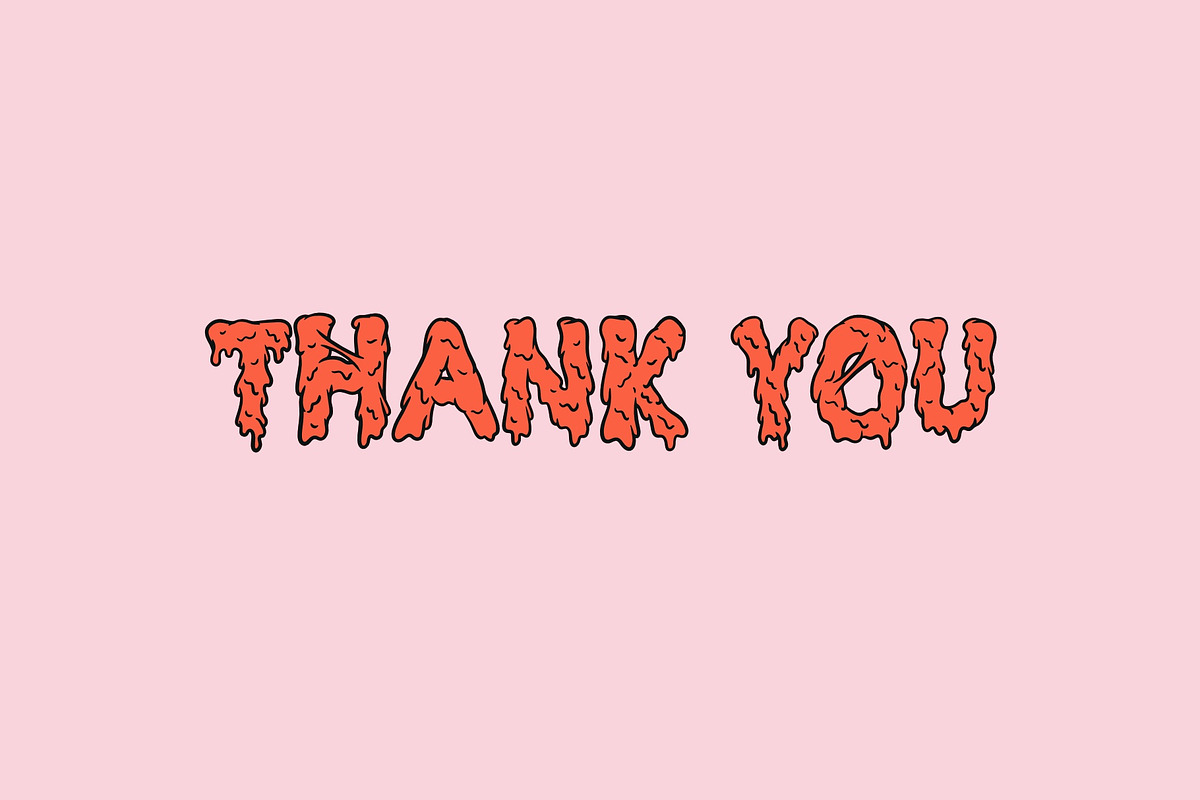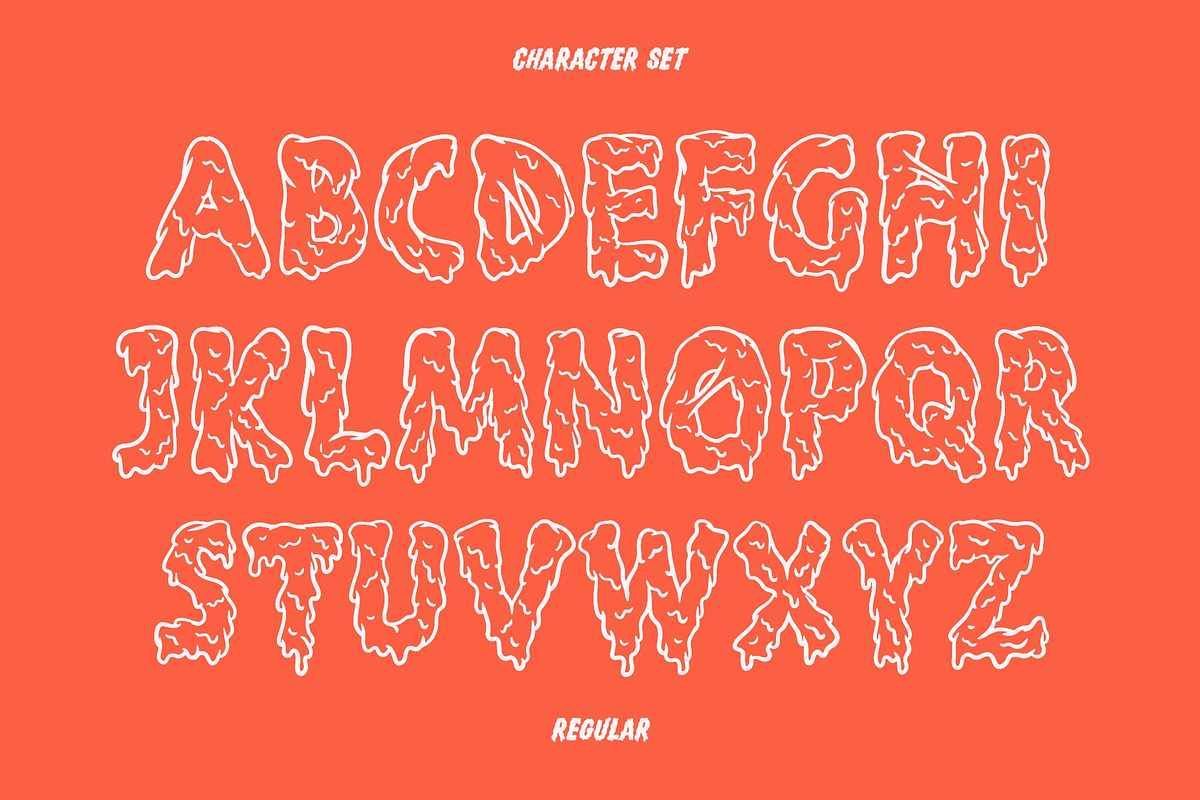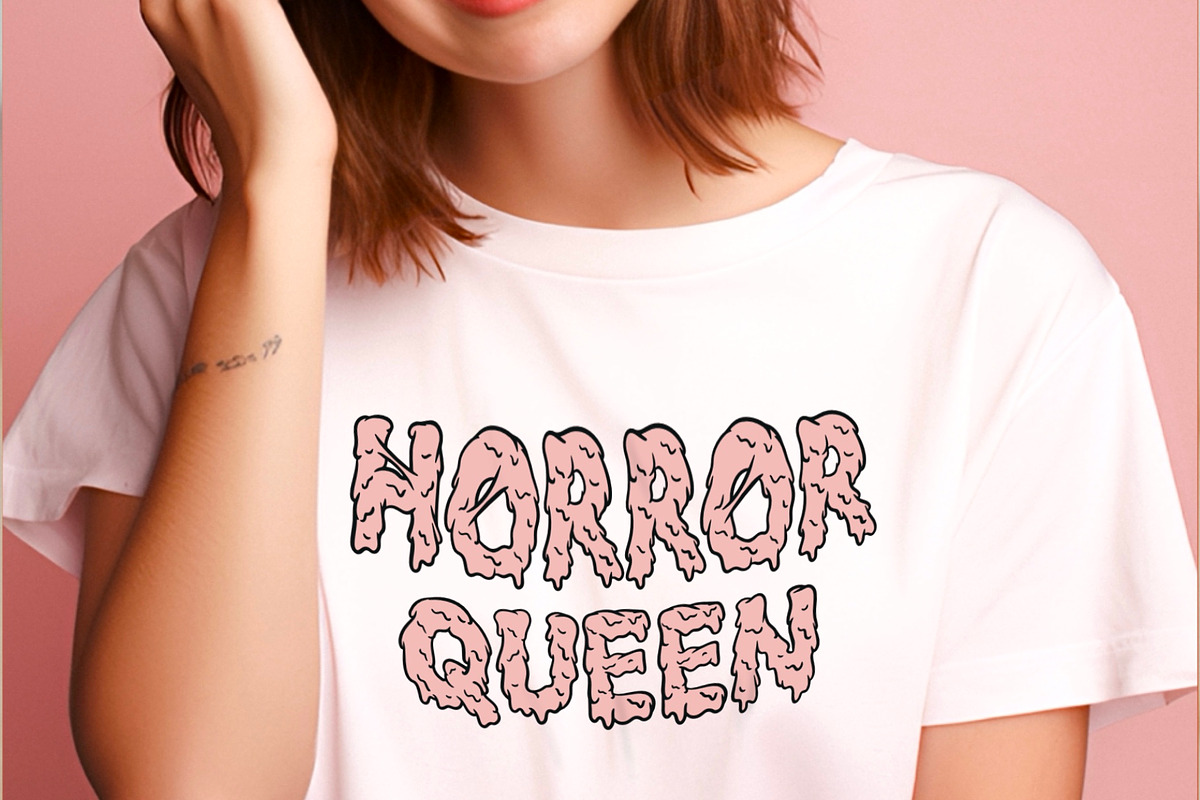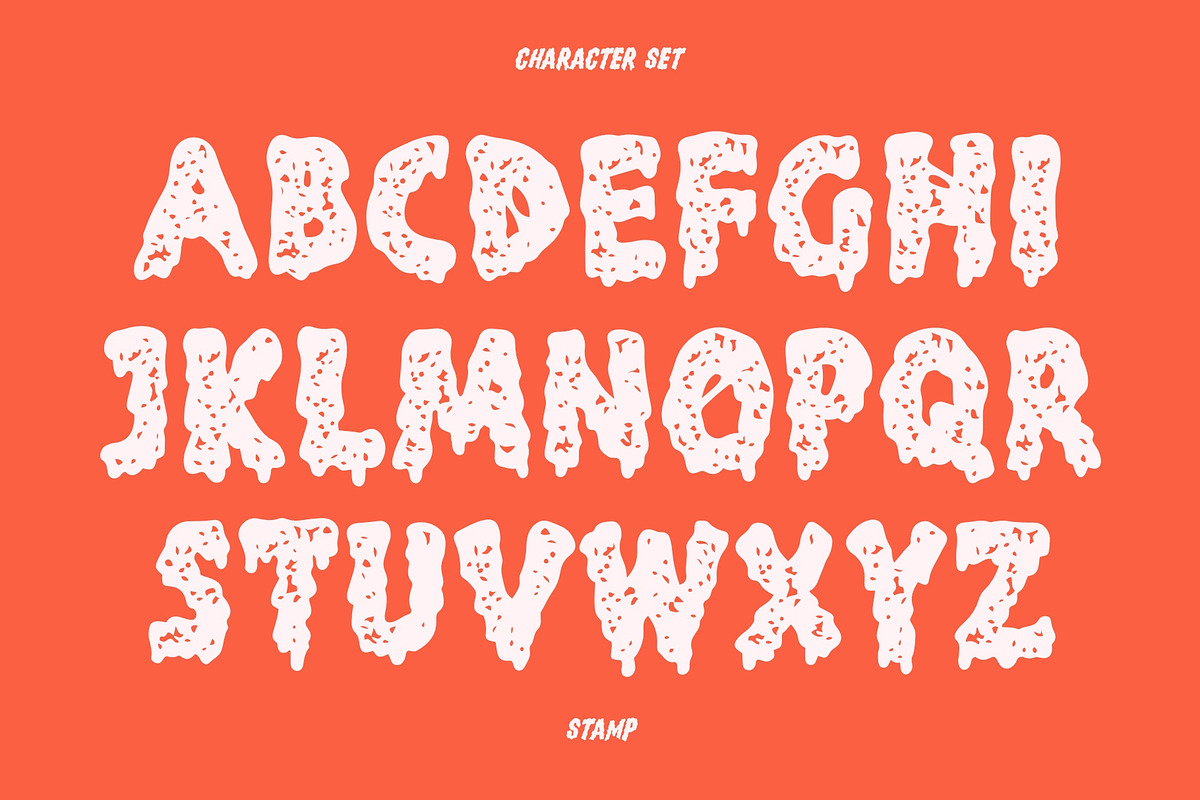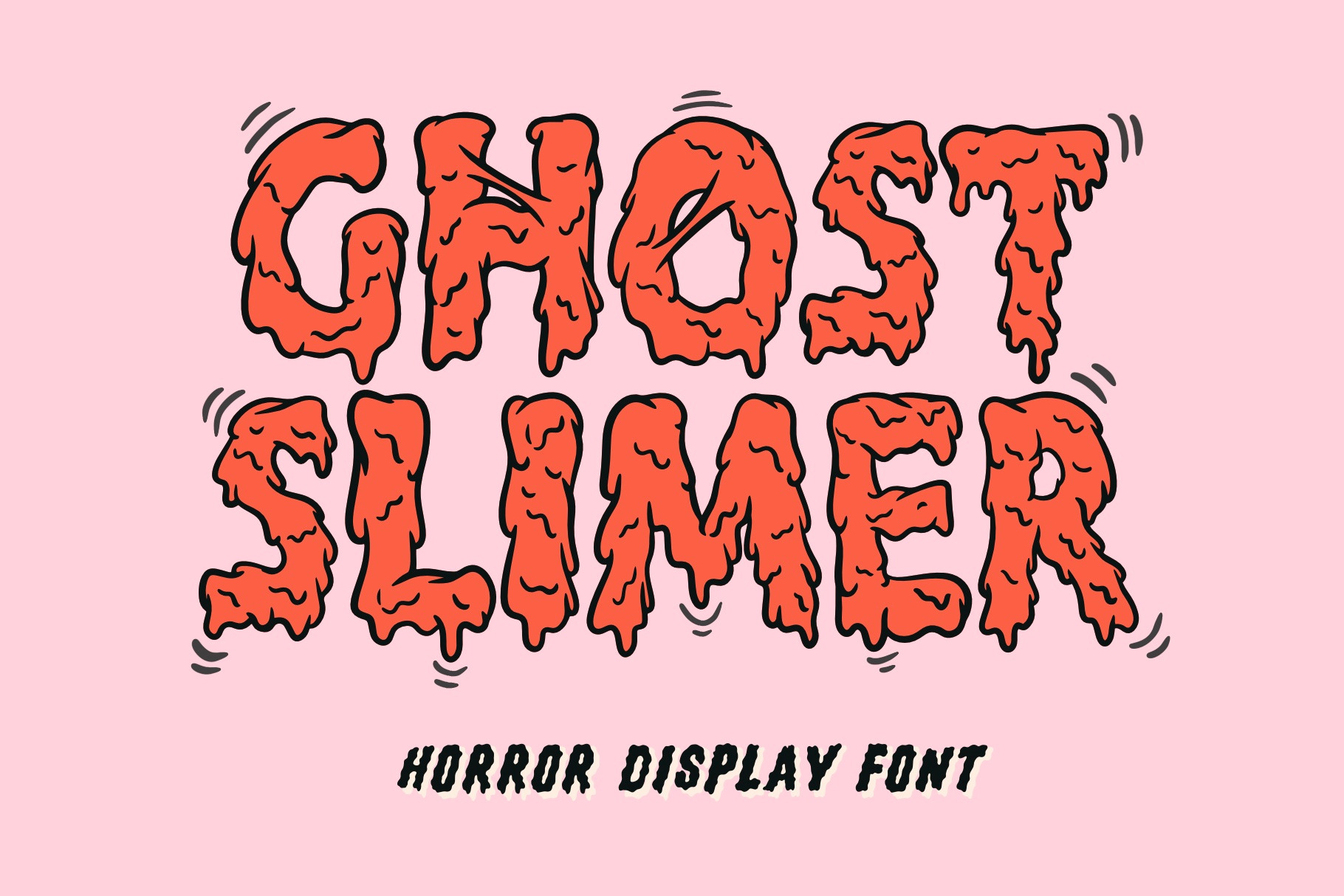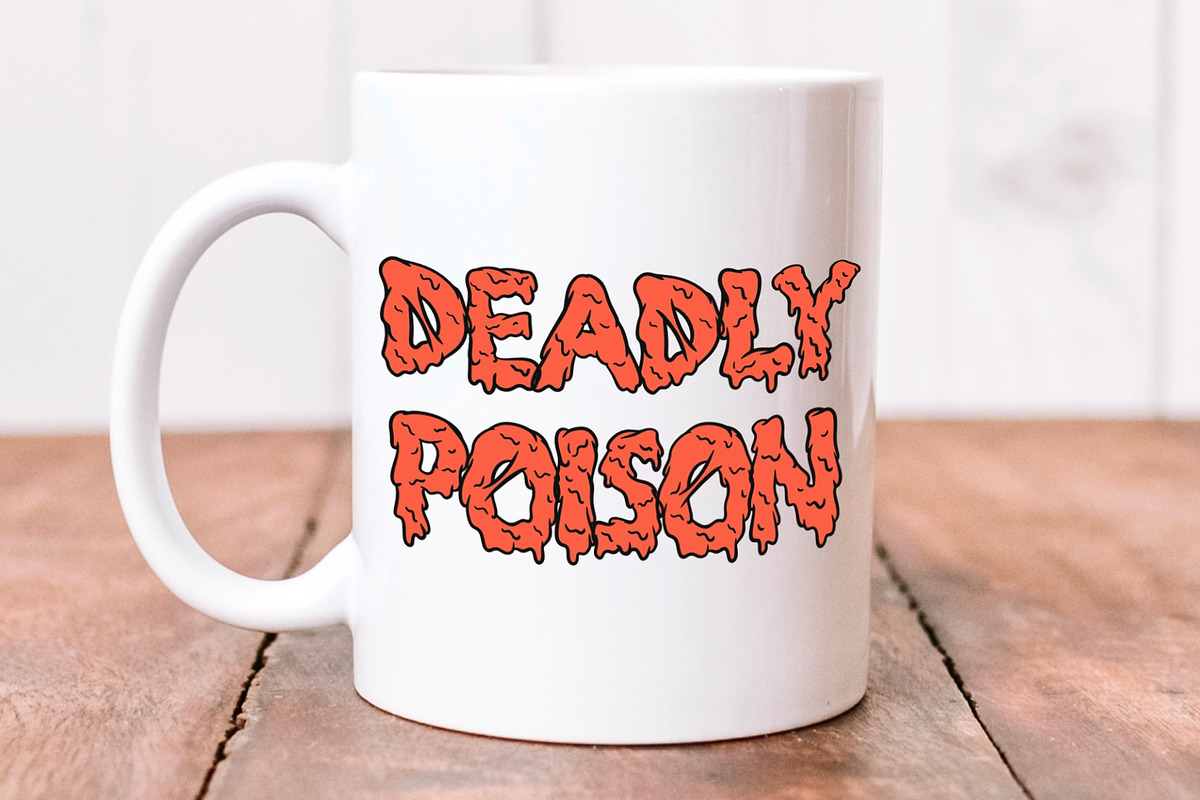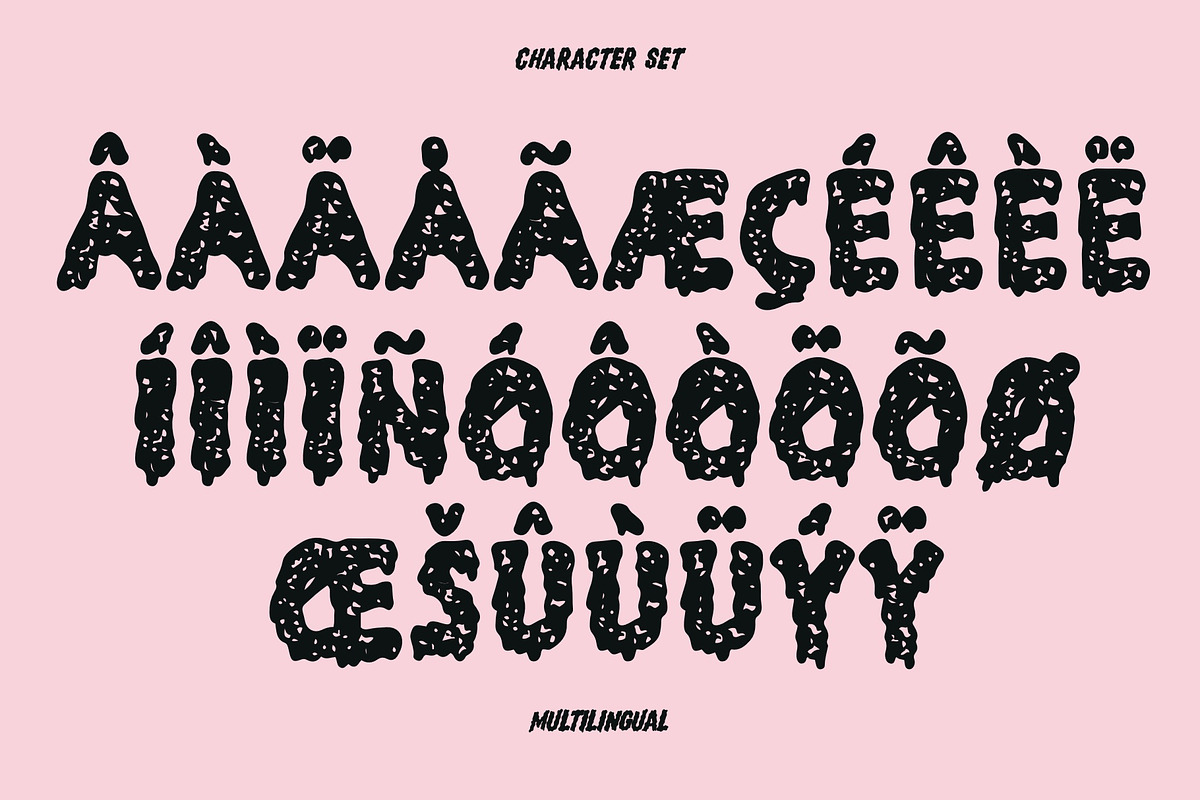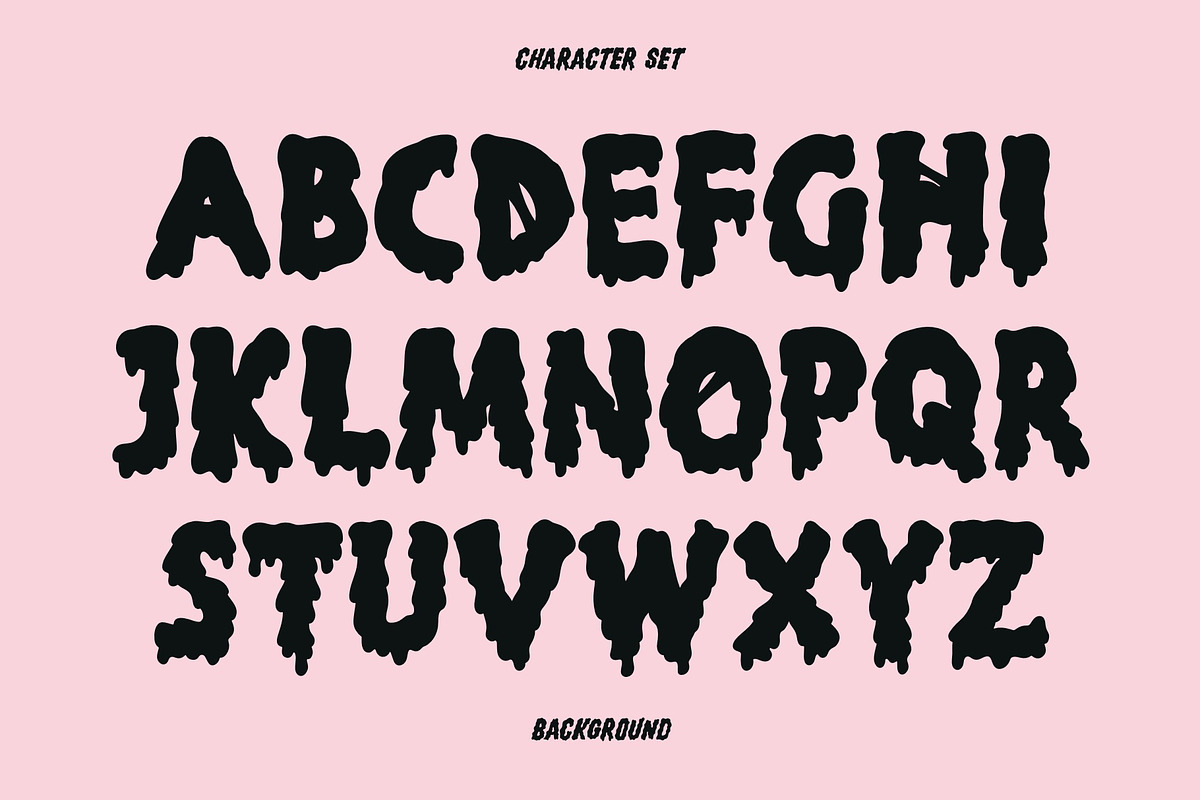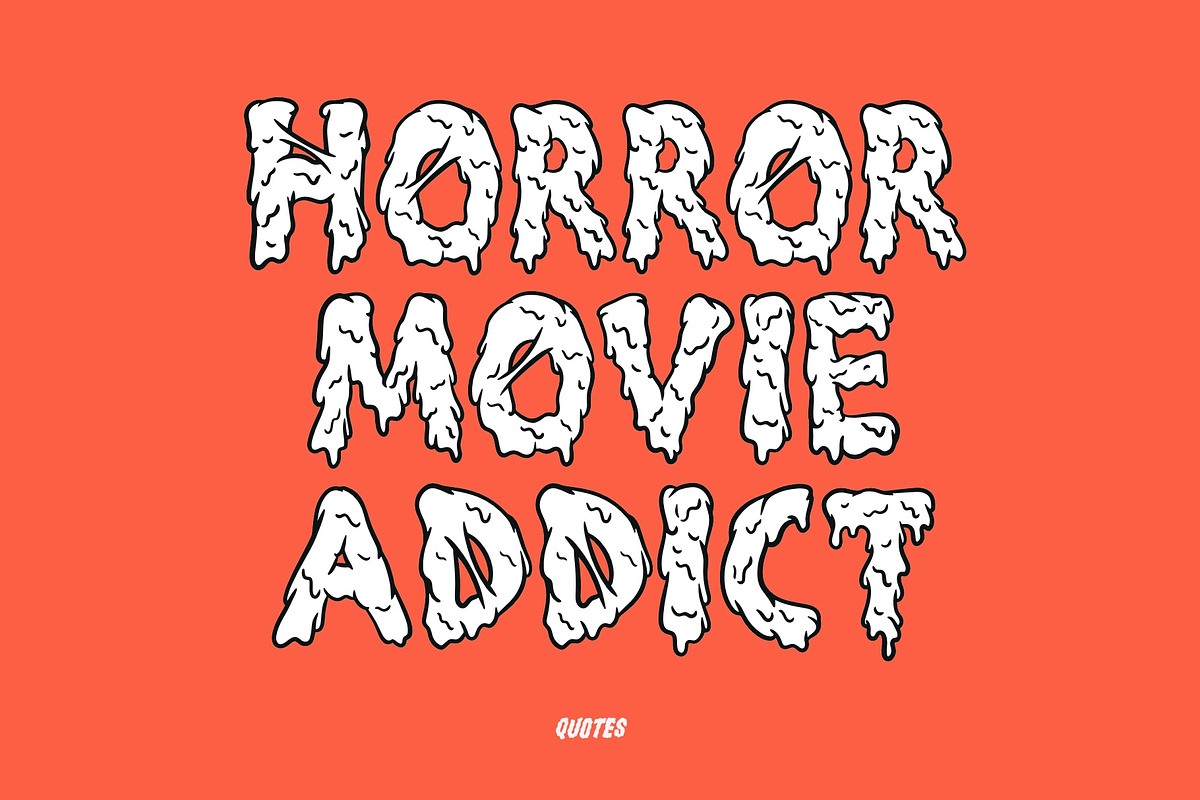
Ghost Slimer Font - Horror Font
Ghost Slimer is an eerily captivating horror font that exudes a spine-chilling aesthetic, perfectly tailored for those seeking to infuse their designs with an air of supernatural suspense. This typeface available in SVG format, compatible with advanced tools such as Cricut and Glowforge, and for use in Procreate. Crafted with meticulous attention to detail, this typeface embodies the essence of all things scary and ghostly.